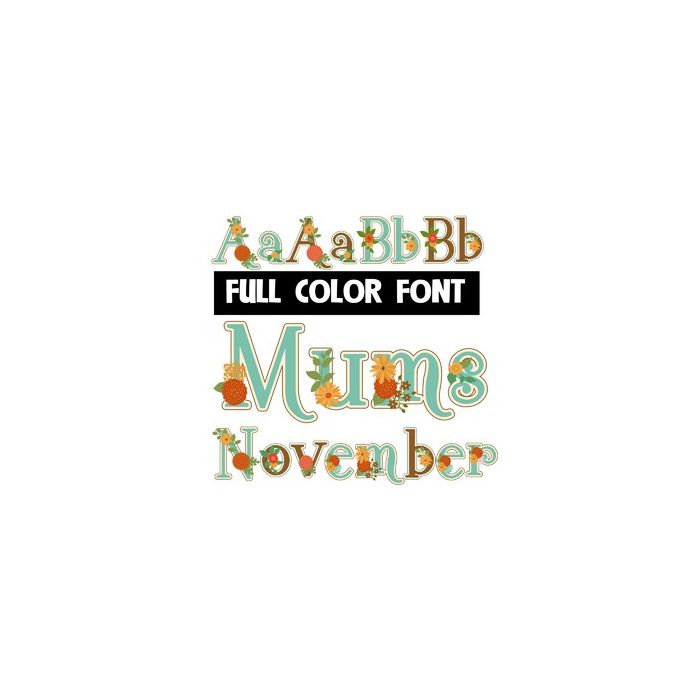
This full-color font features autumn-colored flowers and lettering. There is an alt version upper and lowercase that you can access through Silhouette's glyph map.